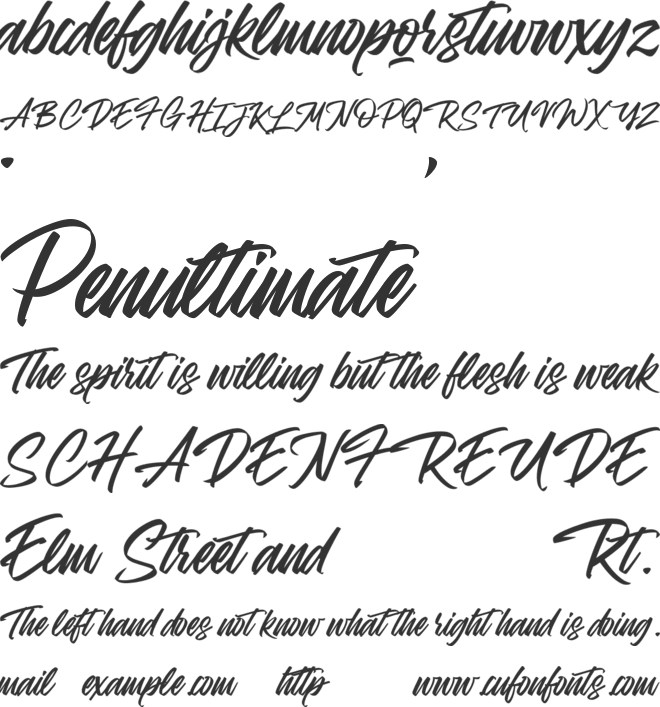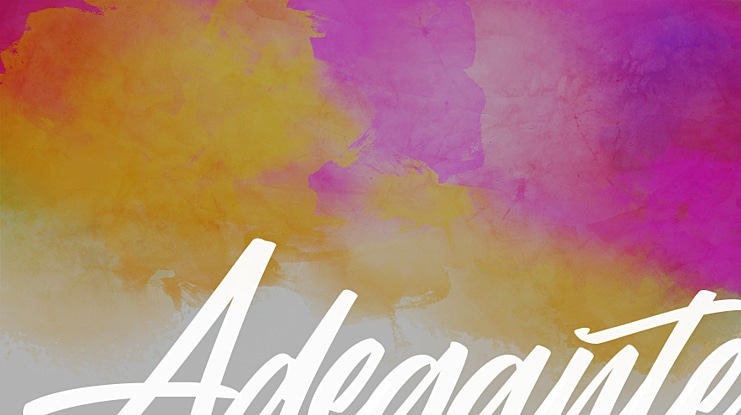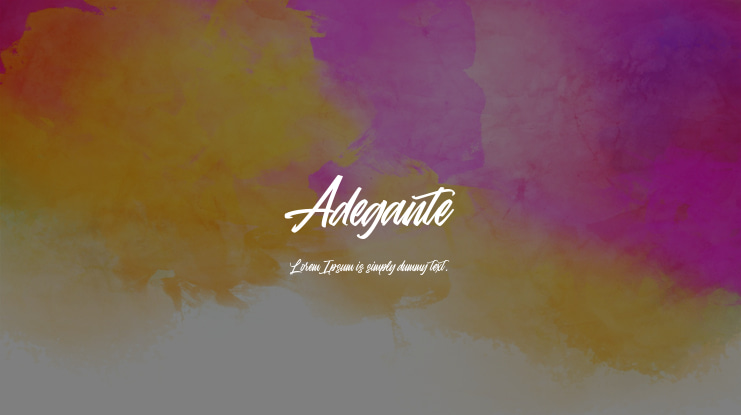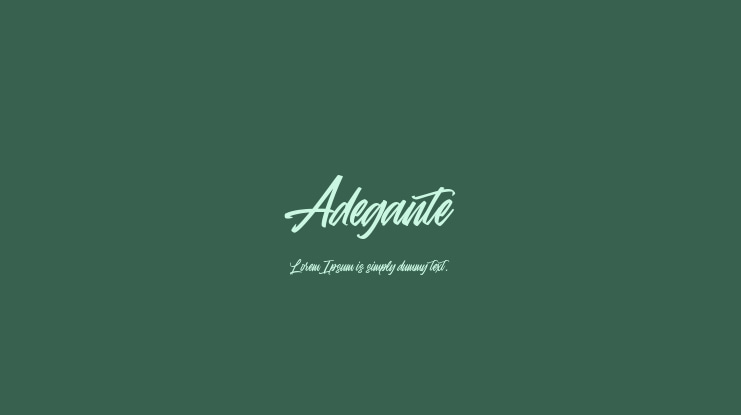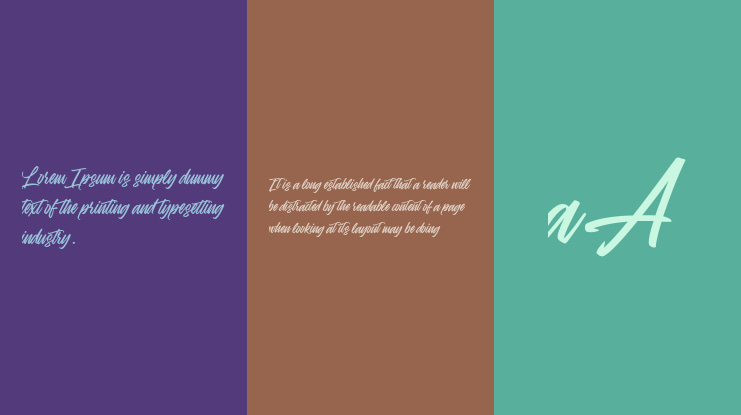
Adegante Font
Adegante Script Font is a striking brush font. It has rough and dry strokes which will give your designs a natural feel. It’s perfect for signatures, branding, wedding, fashion, photography, titles, posters, social media, ad banners, book covers, packaging, handwritten quotes, greeting cards and advertising.